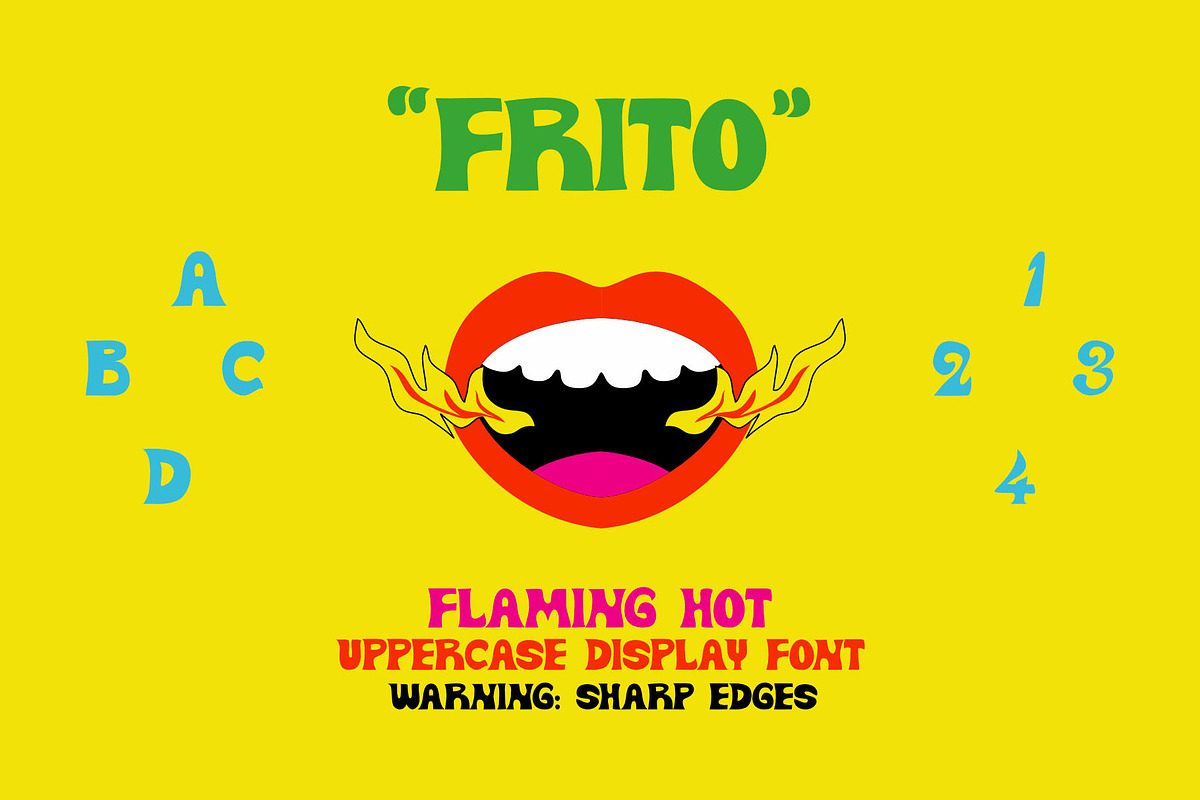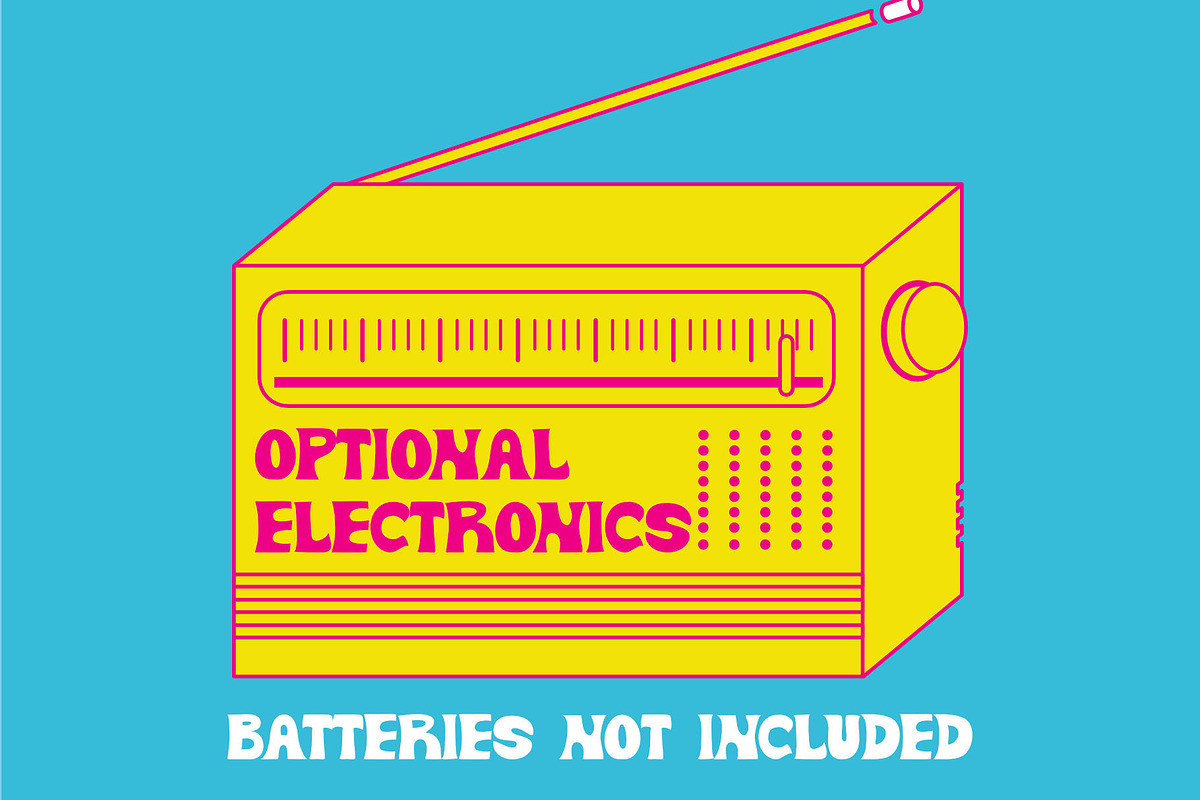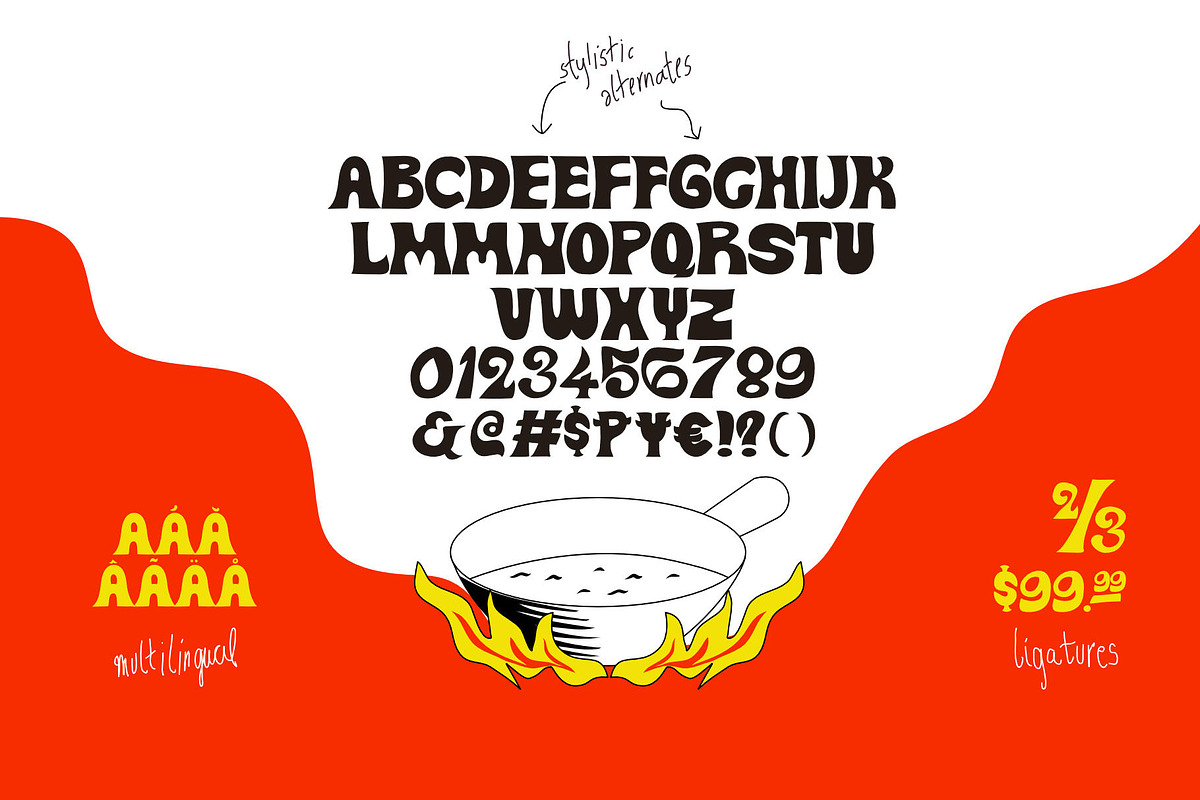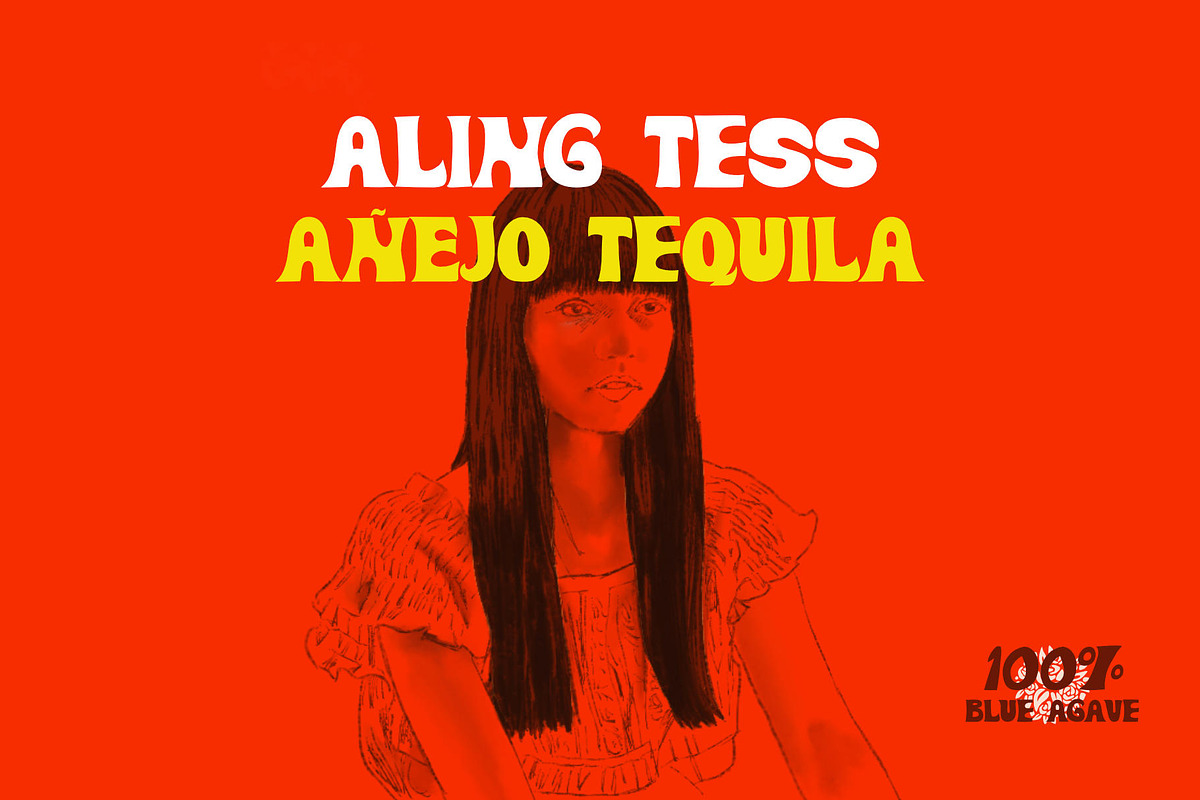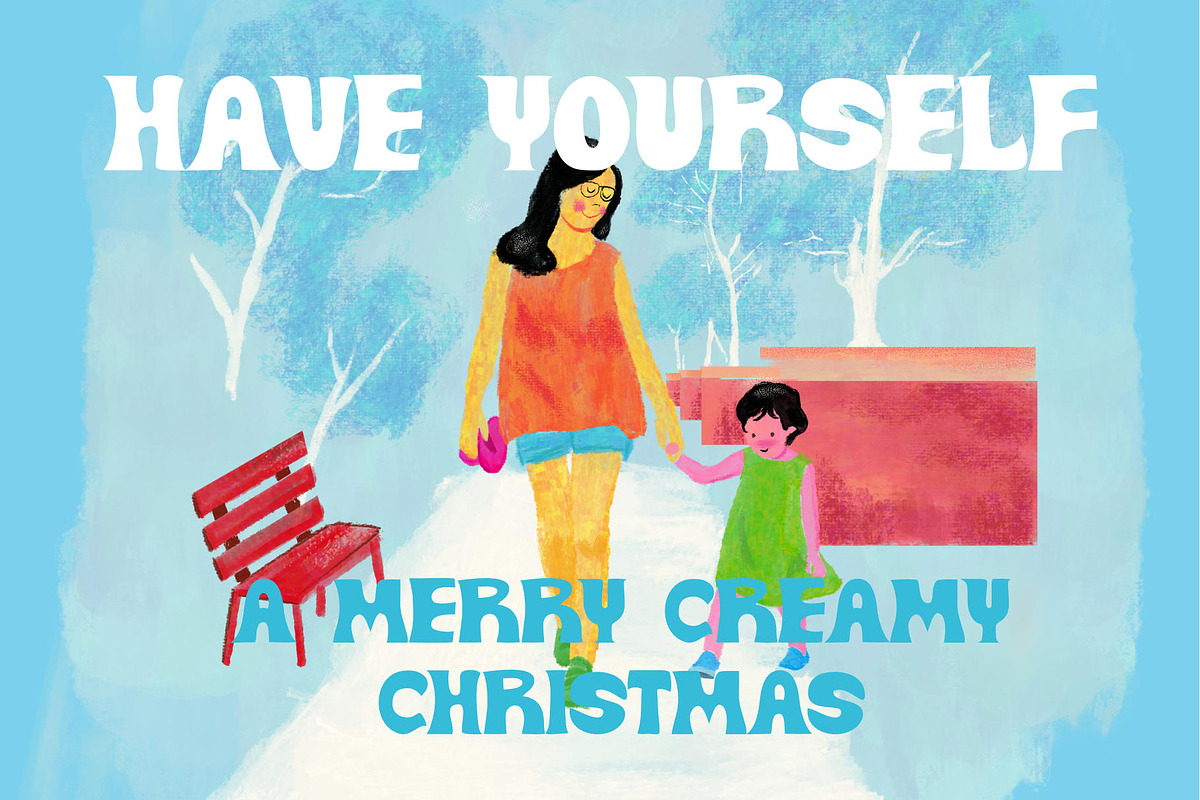
Frito
Frito is an uppercase display type inspired from irreverent hand painted street signs. It's almost a serif, almost sharp and always lackadaisical.